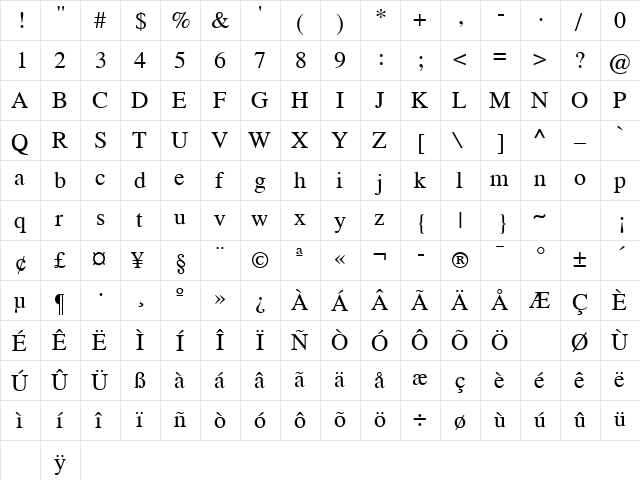
Woman Of The World 16 Regular Font Preview
Woman Of The World 16 Regular
Design Context for Woman Of The World 16 Typeface
Woman Of The World 16 is a composed and adaptable typeface that performs quietly and consistently across a wide range of design contexts.
Pro Tip: Use Woman Of The World 16 in both headline and body roles to test its range before committing to a single application.